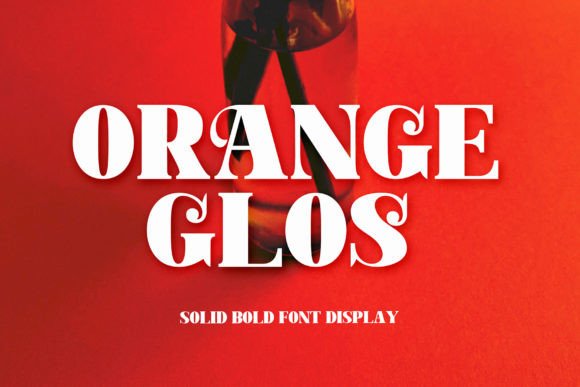
Orange Glos Font
Font Name : Orange Glos Font
Author : gatype
**Introducing Orange Glos: The Serif Font That Will Make Your Designs Shine**
If you're looking for a serif font that is both classic and modern, look no further than Orange Glos. With its slightly grainy exterior and hand-illustrated alternatives, Orange Glos has a unique vintage feel that is perfect for any project.
Whether you're creating a holiday card, a logo, or a website, Orange Glos will add a touch of elegance and sophistication. Its versatile design makes it perfect for a wide range of uses, and its easy-to-read characters make it perfect for both print and web.
**Here are just a few of the reasons why you'll love Orange Glos:**
* It's a classic serif font with a modern twist.
* It has a slightly grainy exterior that adds a touch of vintage character.
* It includes hand-illustrated alternatives for uppercase and lowercase glyphs.
* It's versatile enough to use for a wide range of projects.
* It's easy to read, making it perfect for both print and web.